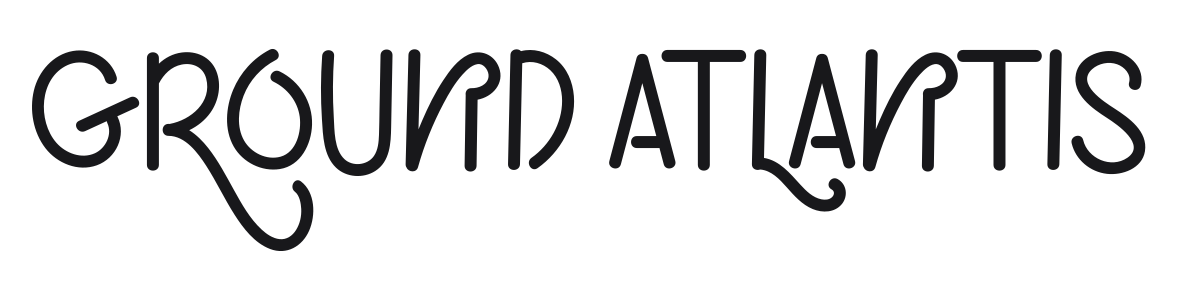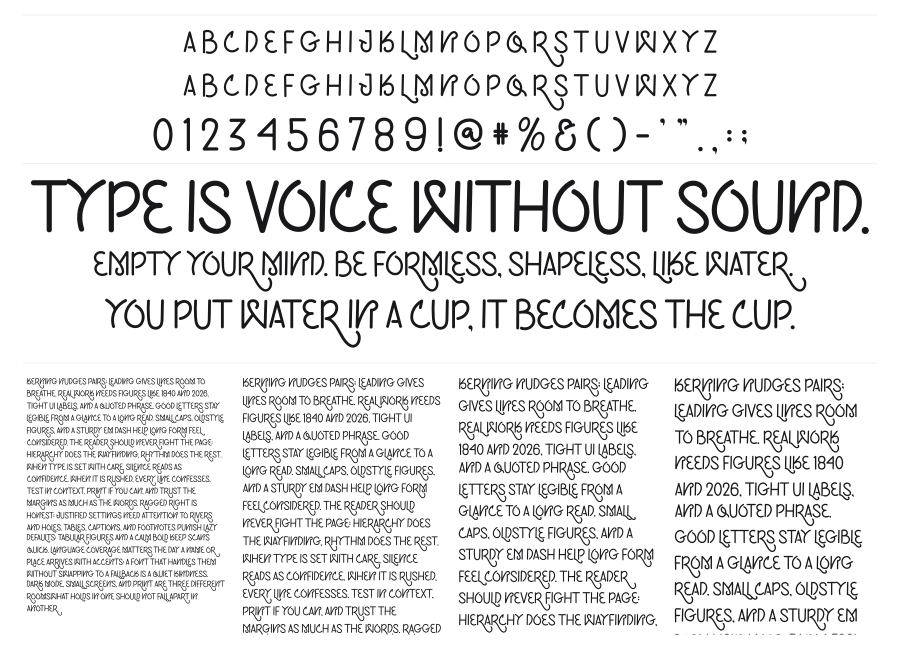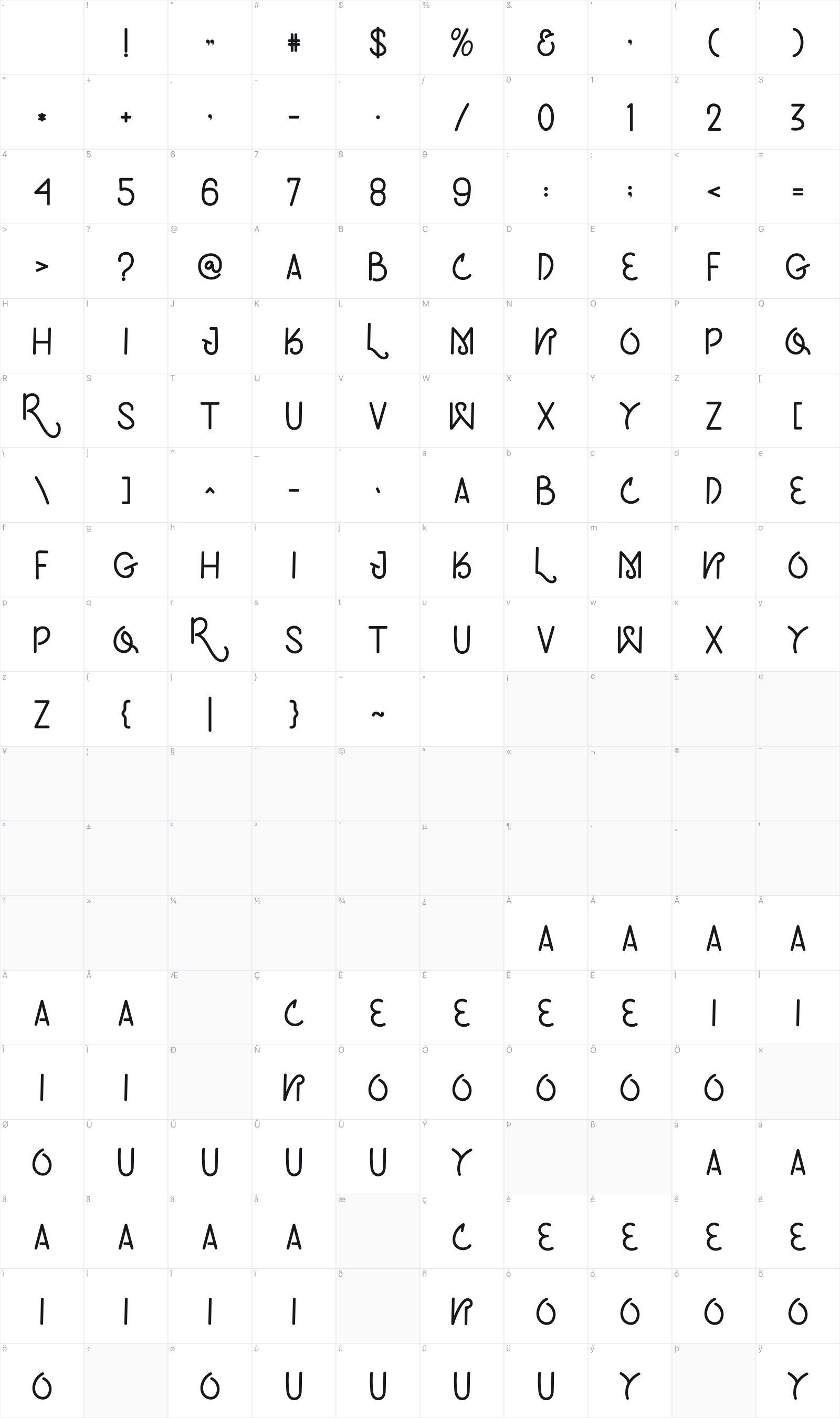
Ground Atlantis
Ground Atlantis is a display sans with deep Art Nouveau roots, characterized by dramatic looping terminals, swirling descenders, and wide organic curves that feel hand-drawn. The monoweight strokes keep it legible at a glance while the curvilinear details give it a groovy, almost psychedelic personality. It carries the spirit of late-1960s poster lettering into contemporary branding and editorial contexts.